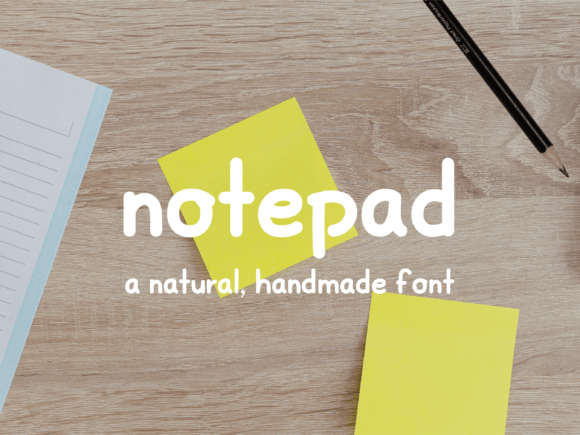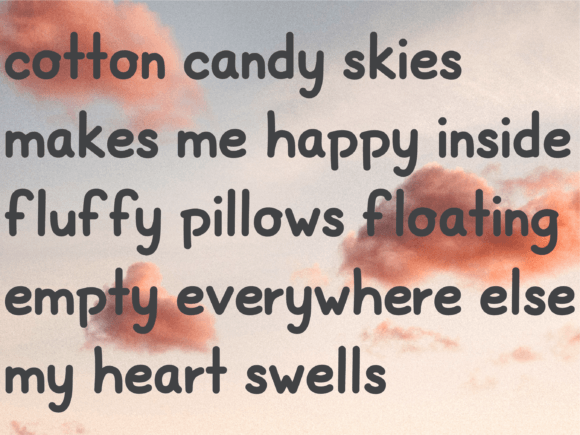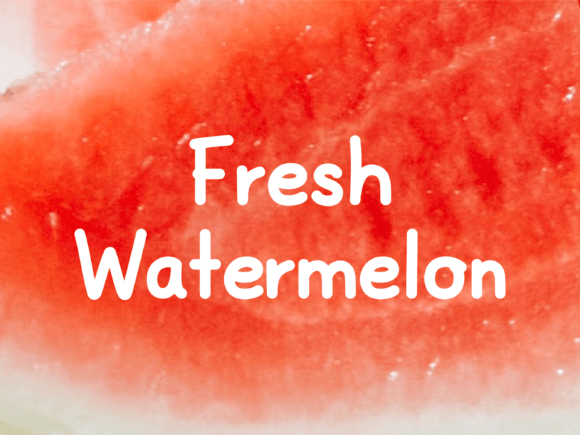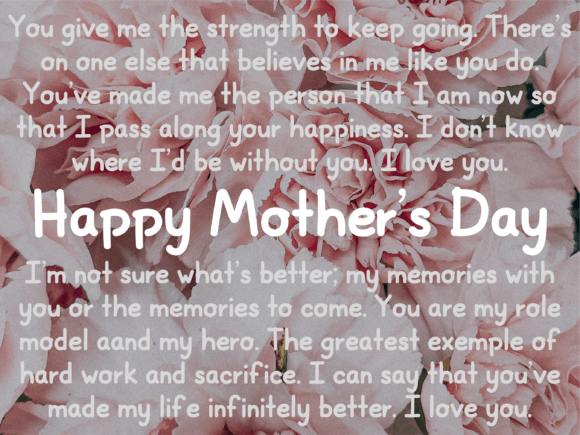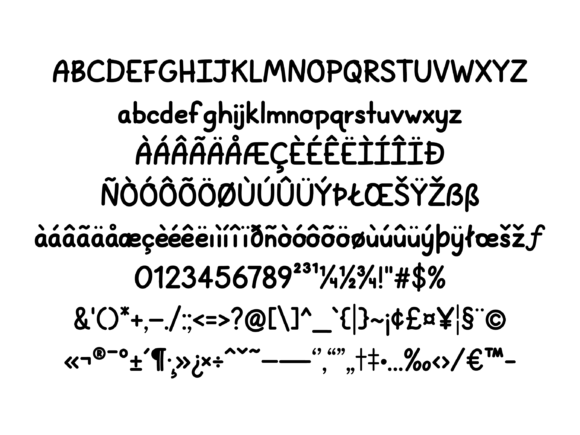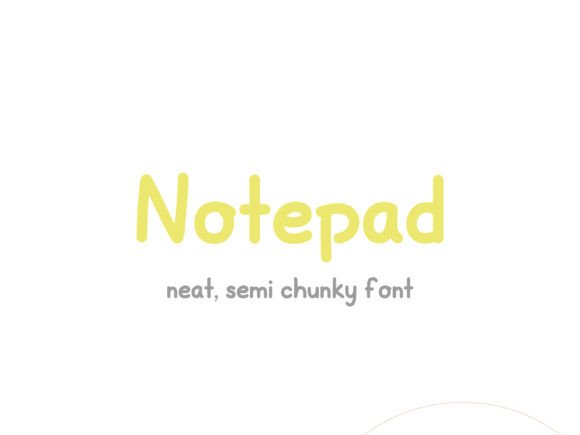
Notepad Font
This font was made to be clean and legible. It’s versatile nature makes it perfect for note taking, posters, or even for long form copy.